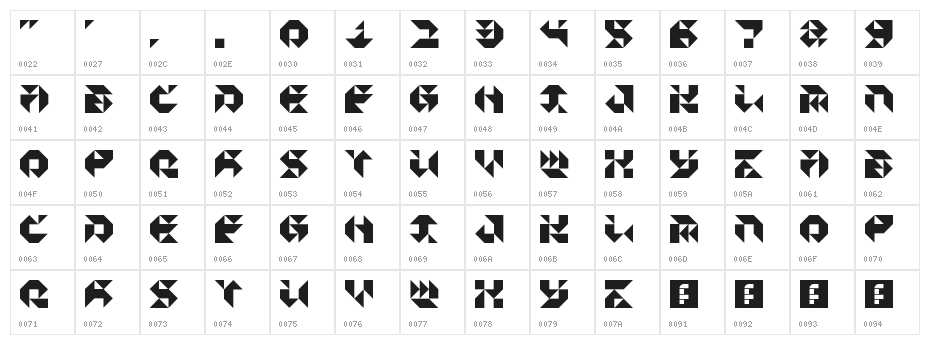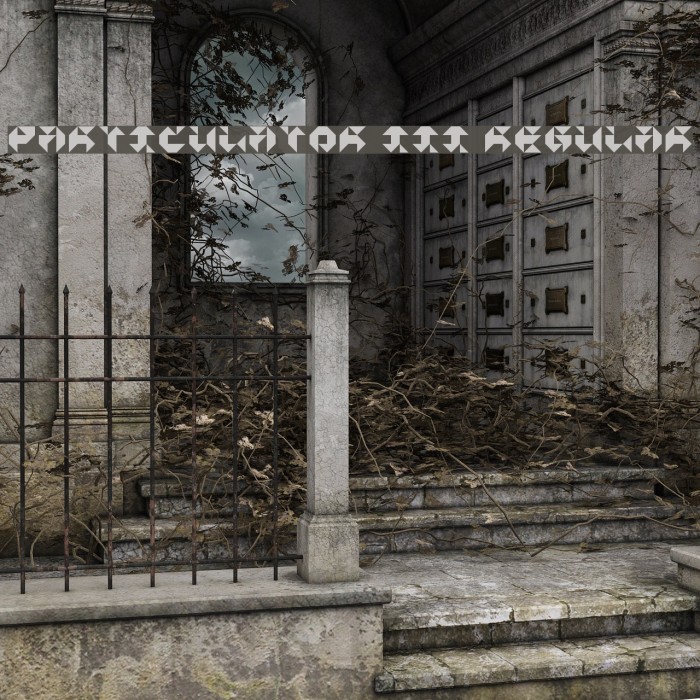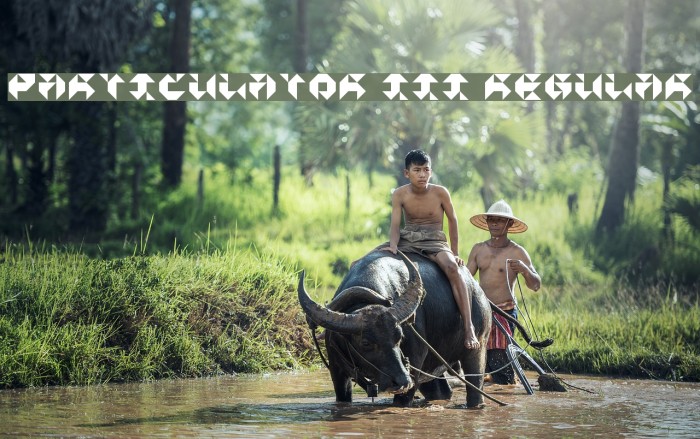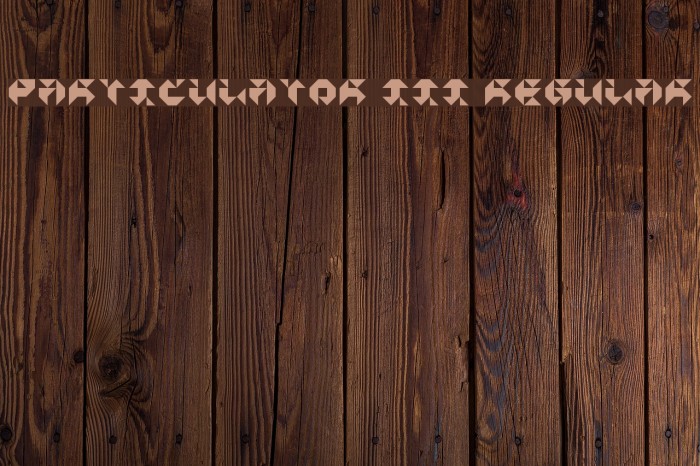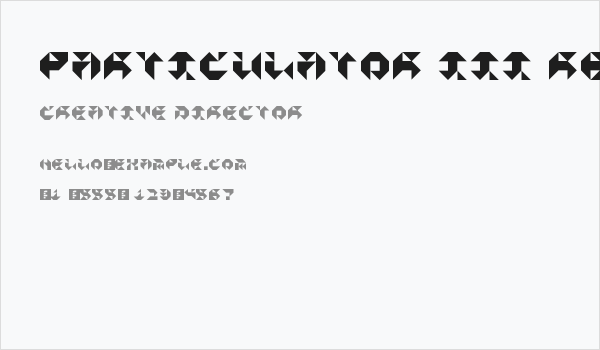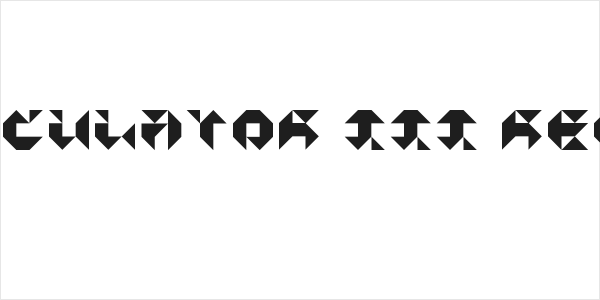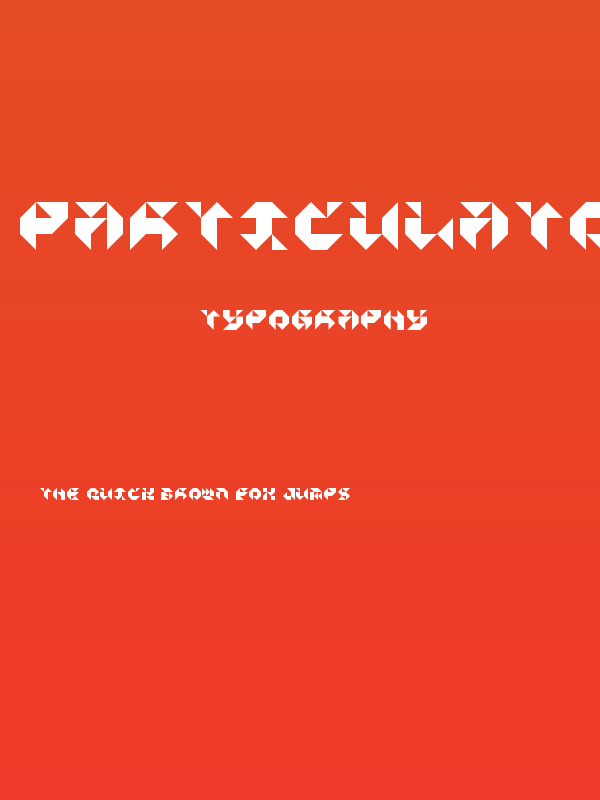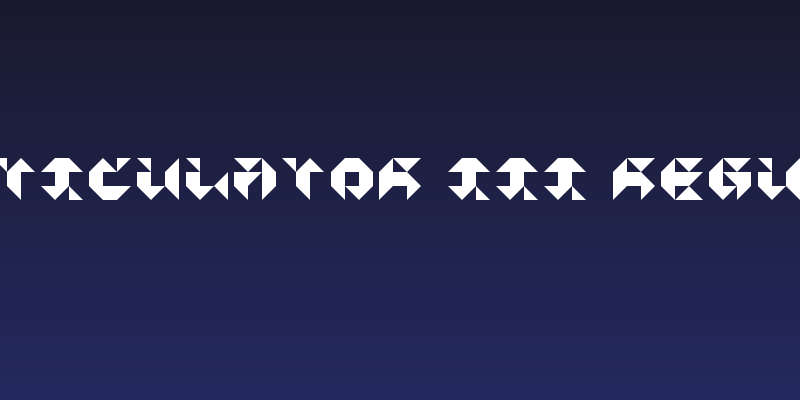
Particulator III Regular Font
Particulator III Regular Description
This font features a bold, geometric design with angular shapes and sharp edges, creating a futuristic and dynamic appearance. The characters are constructed with a series of triangles and straight lines, giving them a fragmented and abstract look. The uppercase and lowercase letters maintain a consistent style, with each character appearing as a unique geometric puzzle. The numbers and special characters follow the same design principles, ensuring uniformity across the typeface. This font's distinct style makes it highly suitable for projects that require a modern and edgy aesthetic.
| Proposed Projects | Ideal for sci-fi themed designs, modern branding, video game titles, and tech-related projects. |